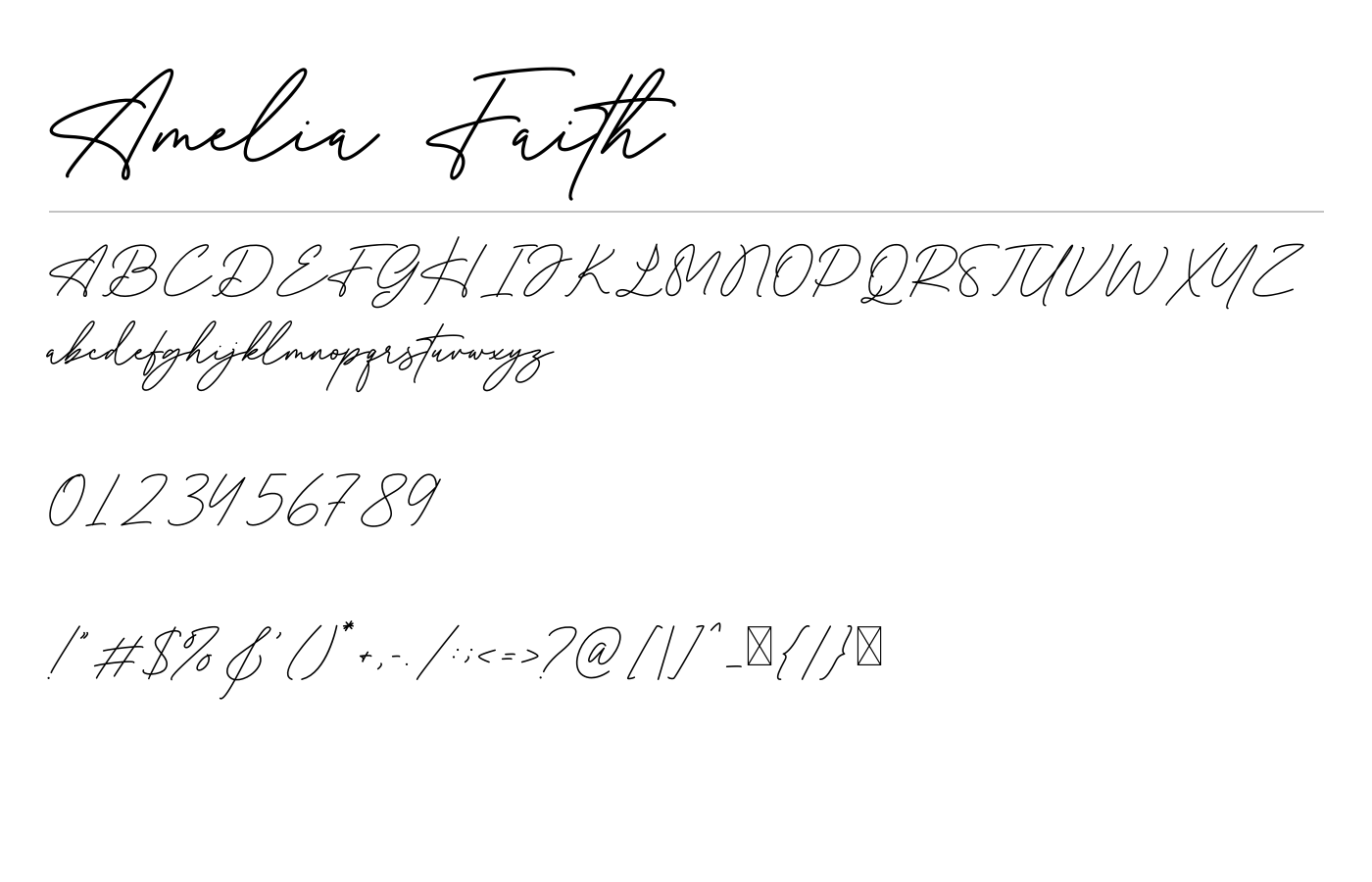
Amelia Faith is a delicate, elegant script font with thin, flowing strokes that mimic natural handwriting. Its slender letterforms and smooth curves give it a graceful and personal feel, making it ideal for branding, invitations, and projects that seek a sophisticated yet approachable touch. This font works beautifully in design contexts where a refined, handwritten aesthetic is desired.
Amelia Faith Font
About Amelia Faith Font
| Font family | Amelia Faith Font |